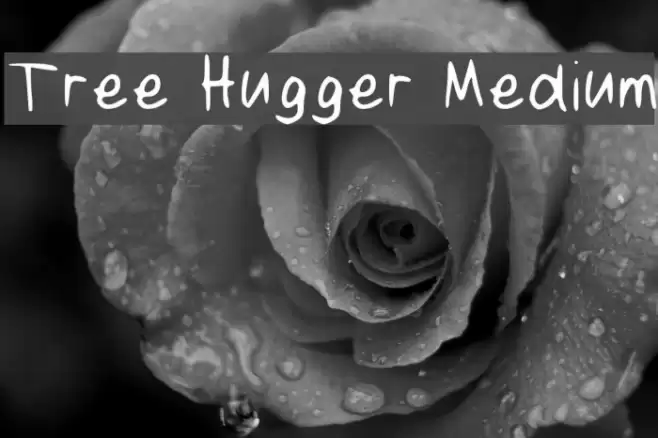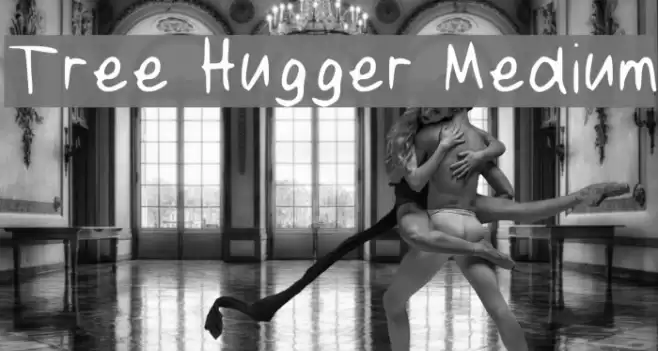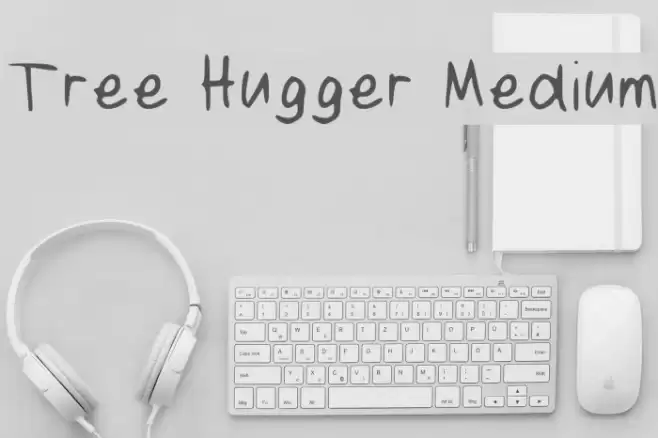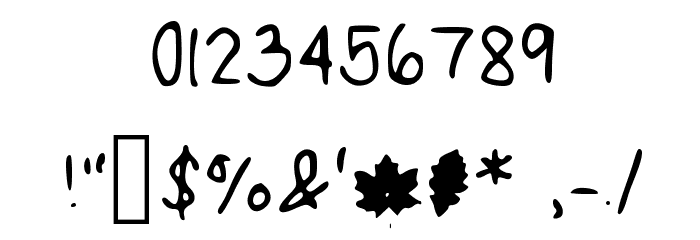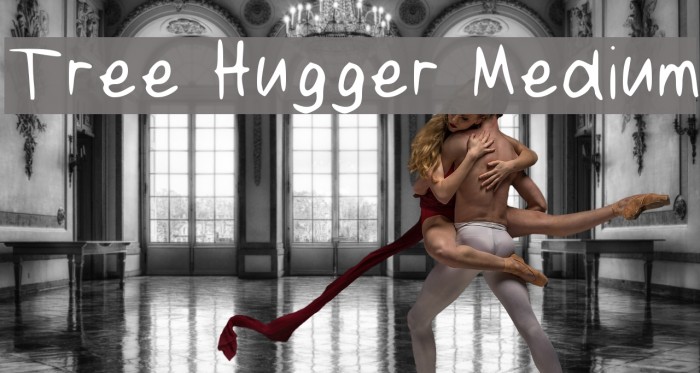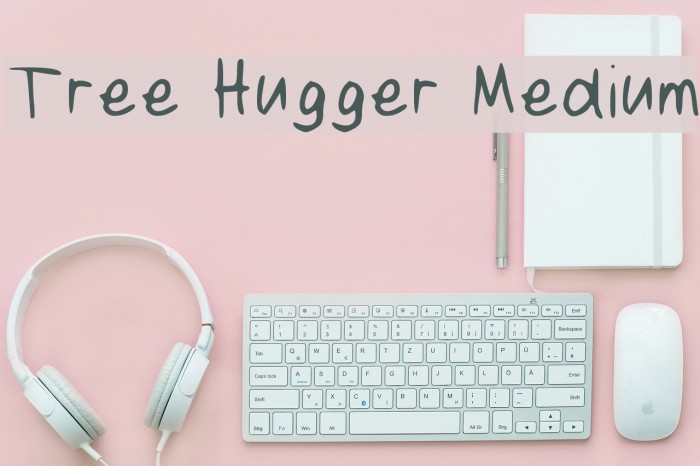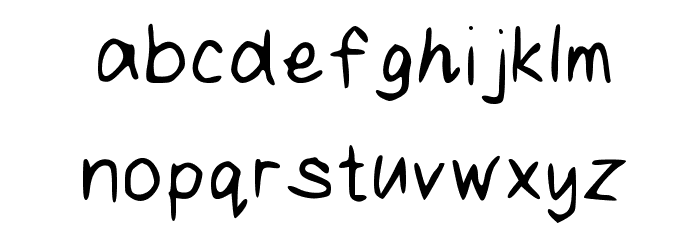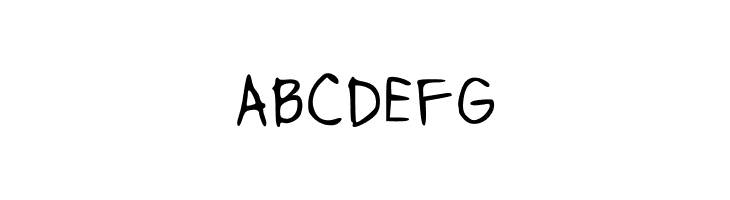
Tree Hugger Medium Font
Tree Hugger Medium Description
This font features a playful and organic handwritten style, characterized by its uneven strokes and casual appearance. The letters have a natural flow, with slight variations in size and shape, giving it a personal and informal feel. The uppercase and lowercase letters maintain a consistent style, with rounded edges and a slightly tilted orientation. The numerals and special characters complement the alphabet with similar whimsical traits. This font is ideal for projects that require a touch of personality and creativity, such as children's books, eco-friendly branding, or artistic posters.
A playful, organic handwritten font with a casual and personal style from Uncategorized fonts.
- Proposed Projects: Children's books, eco-friendly branding, artistic posters, greeting cards.
- Overall Style: Casual, Playful
- Use Case: Headlines, Informal text, Creative projects